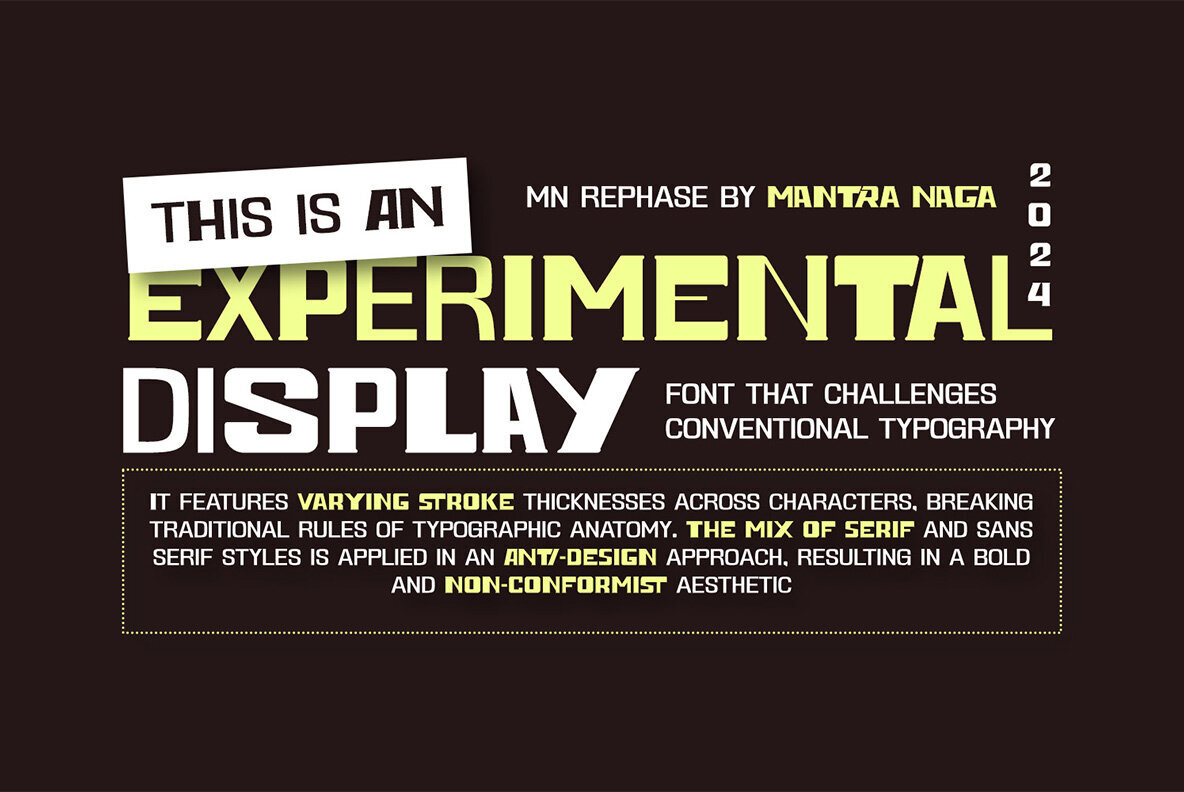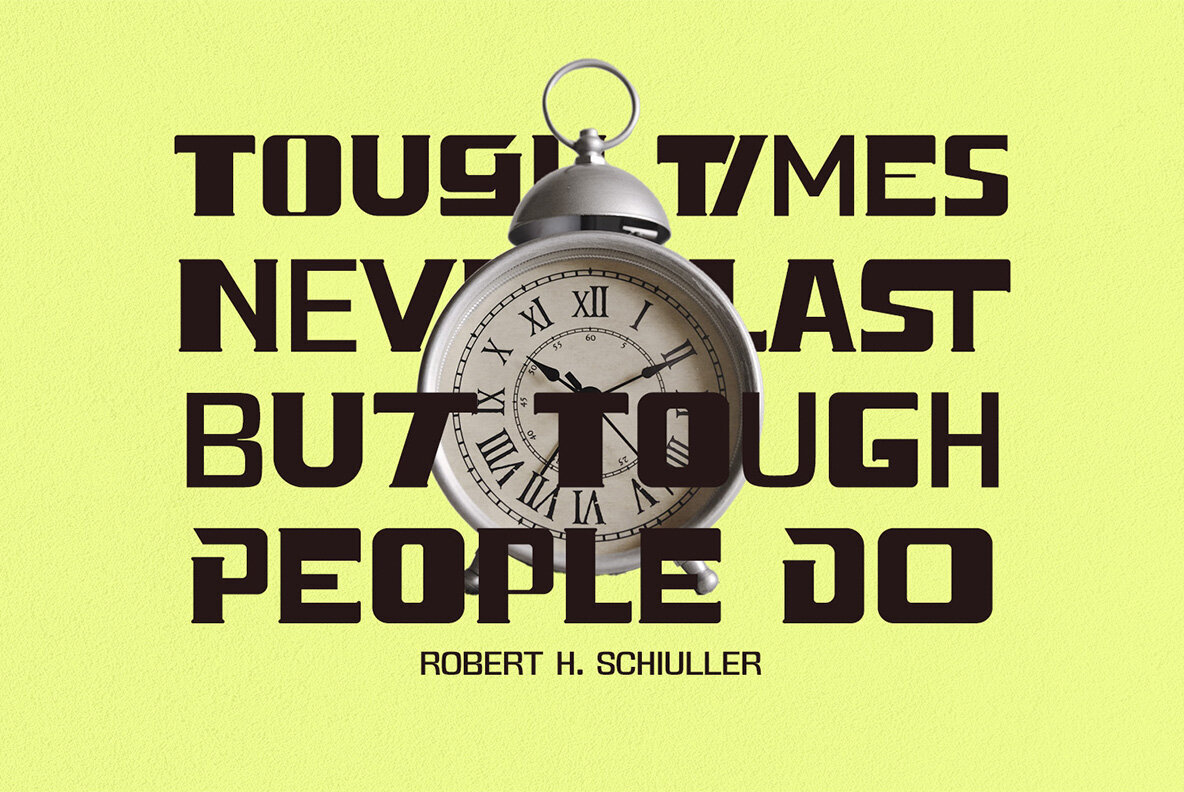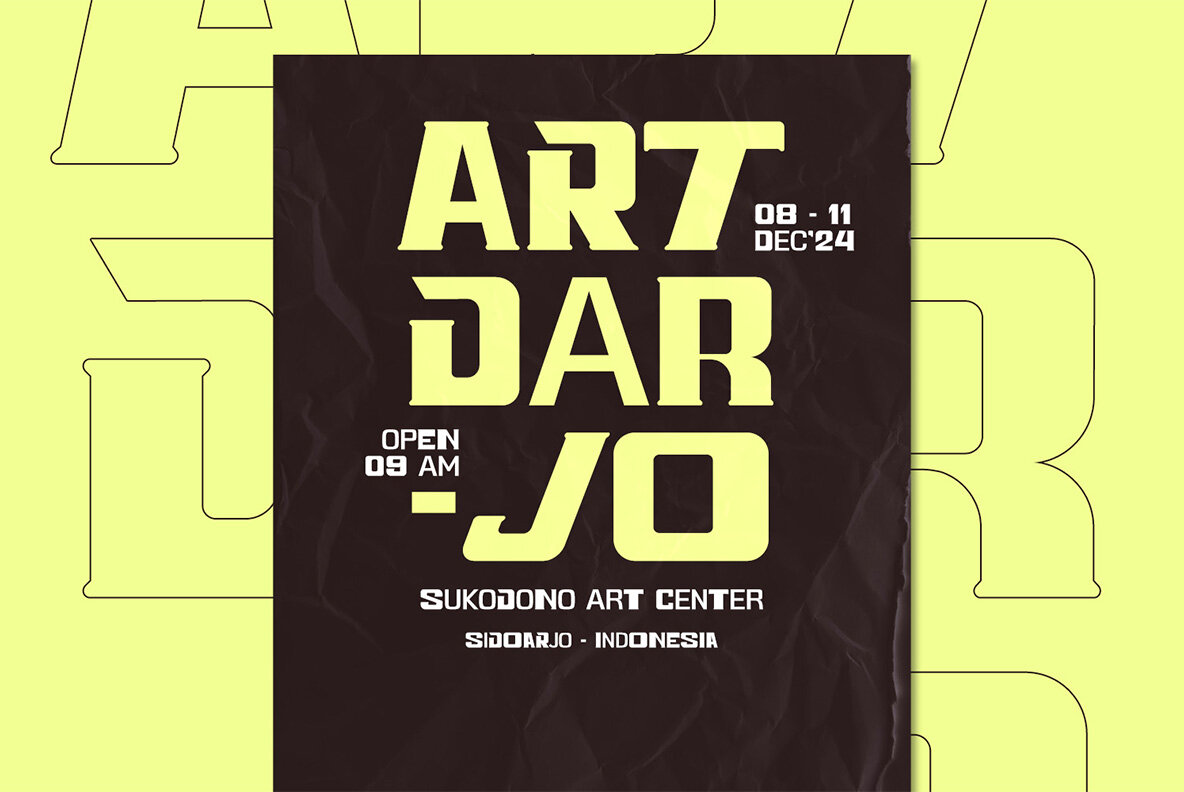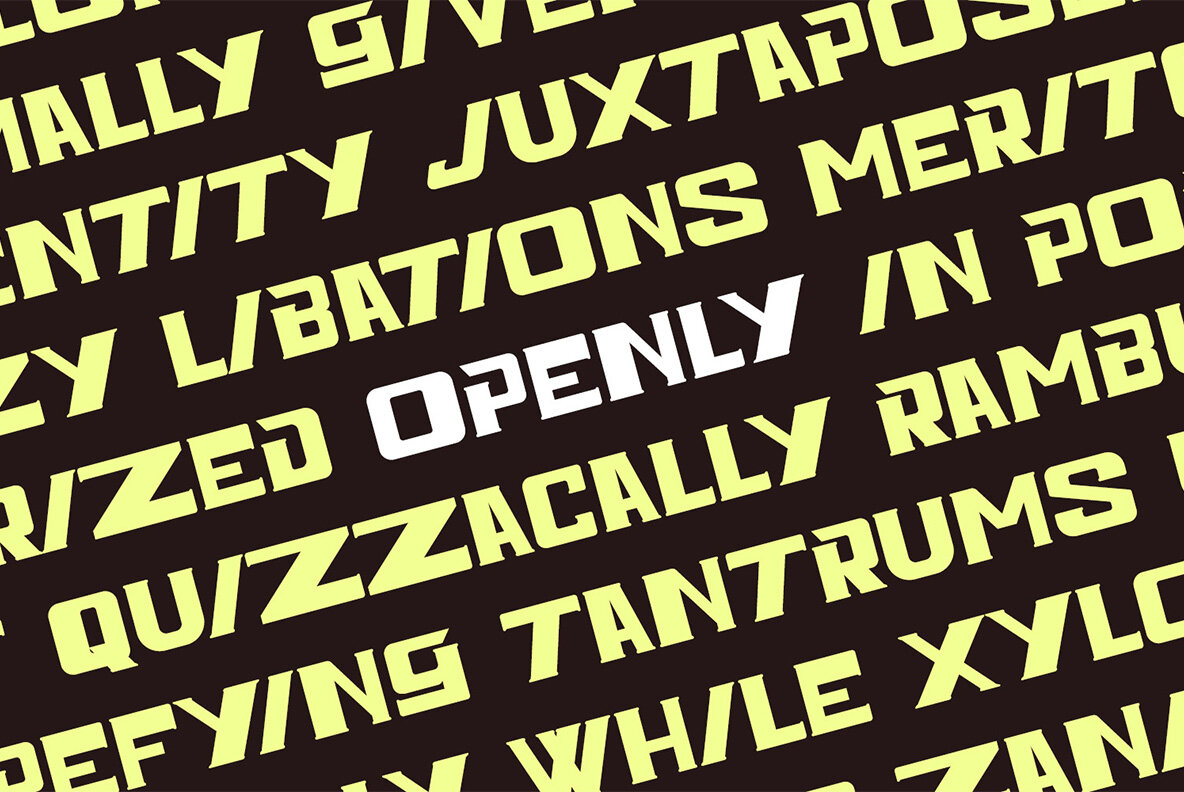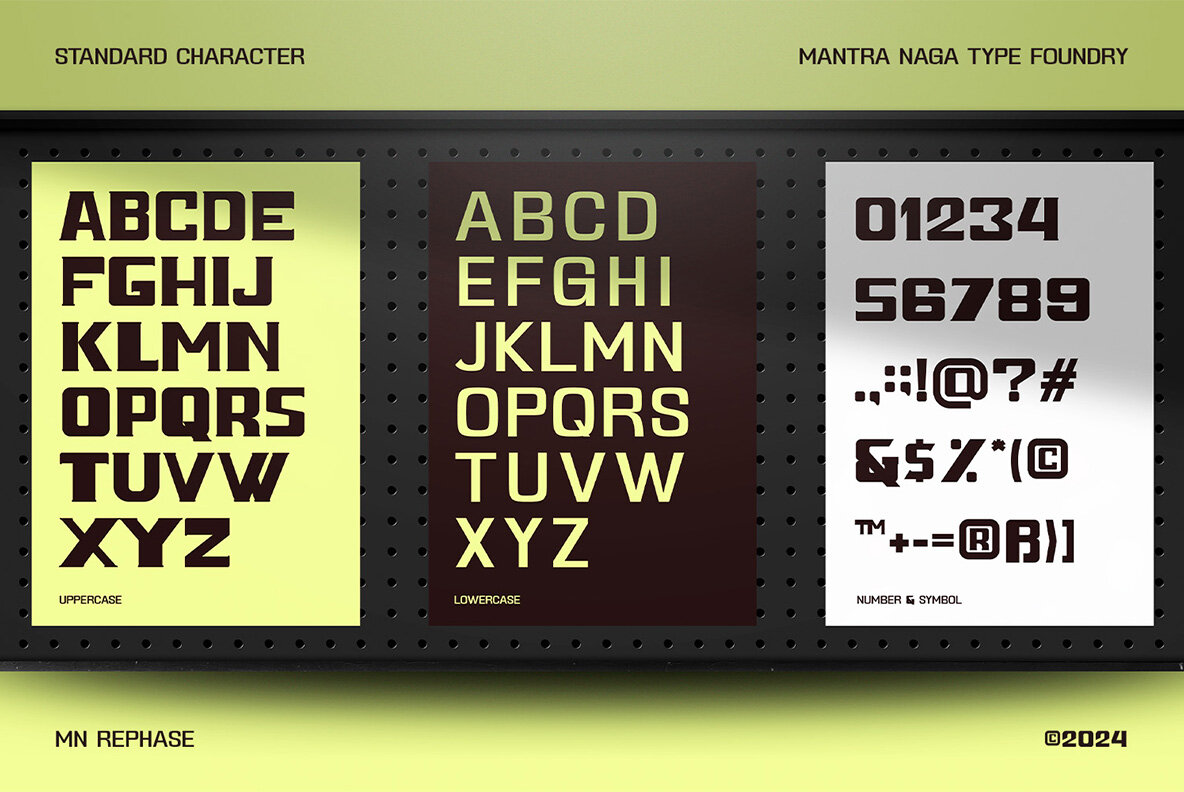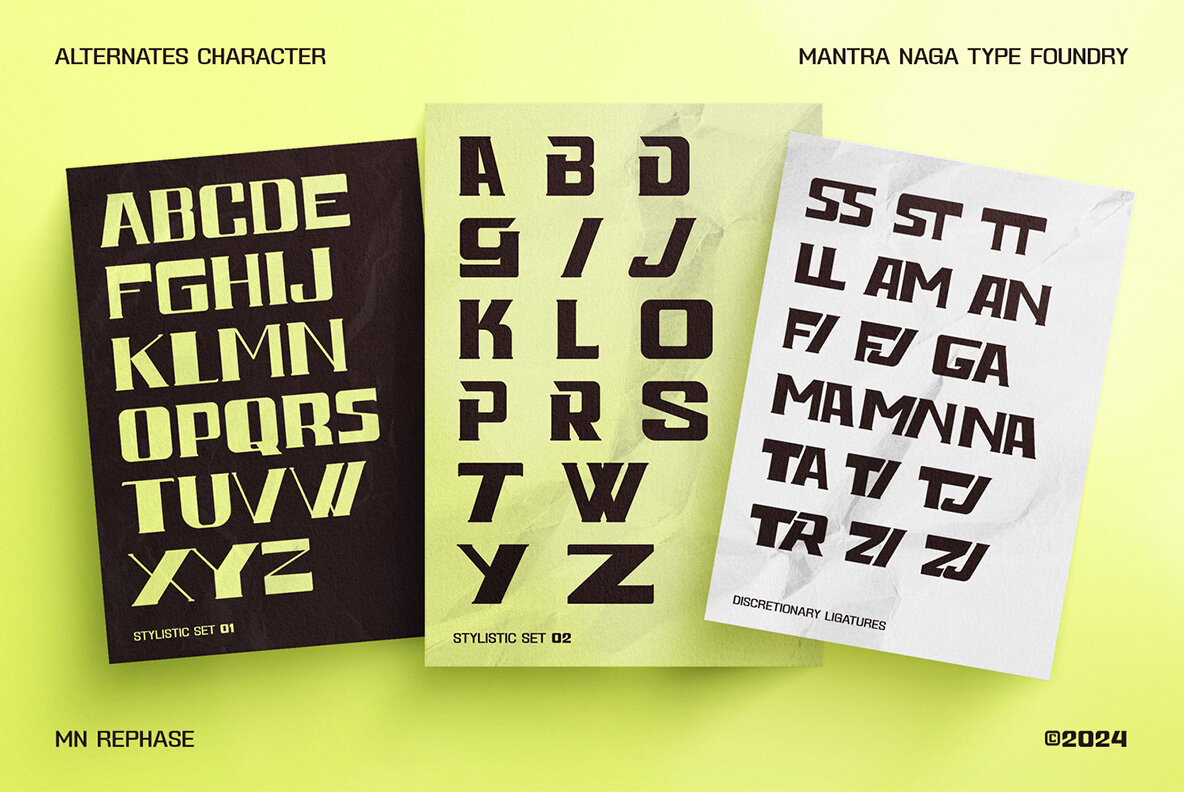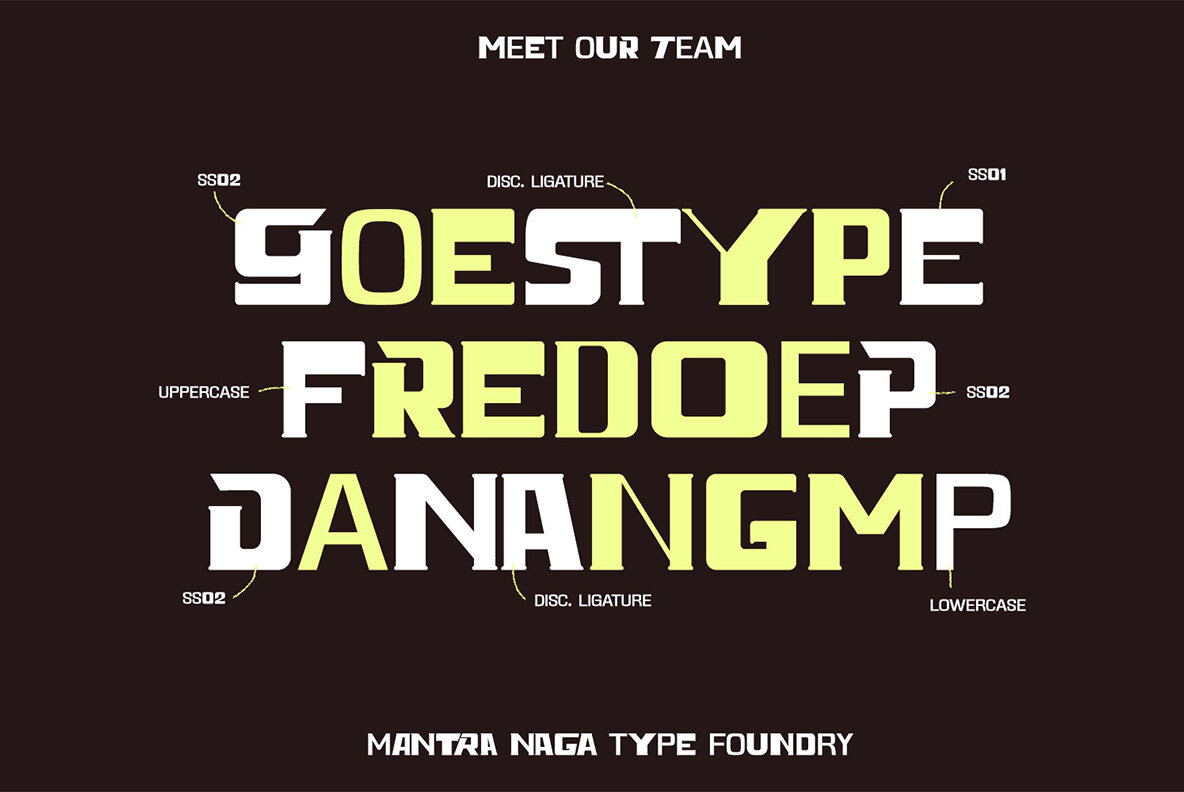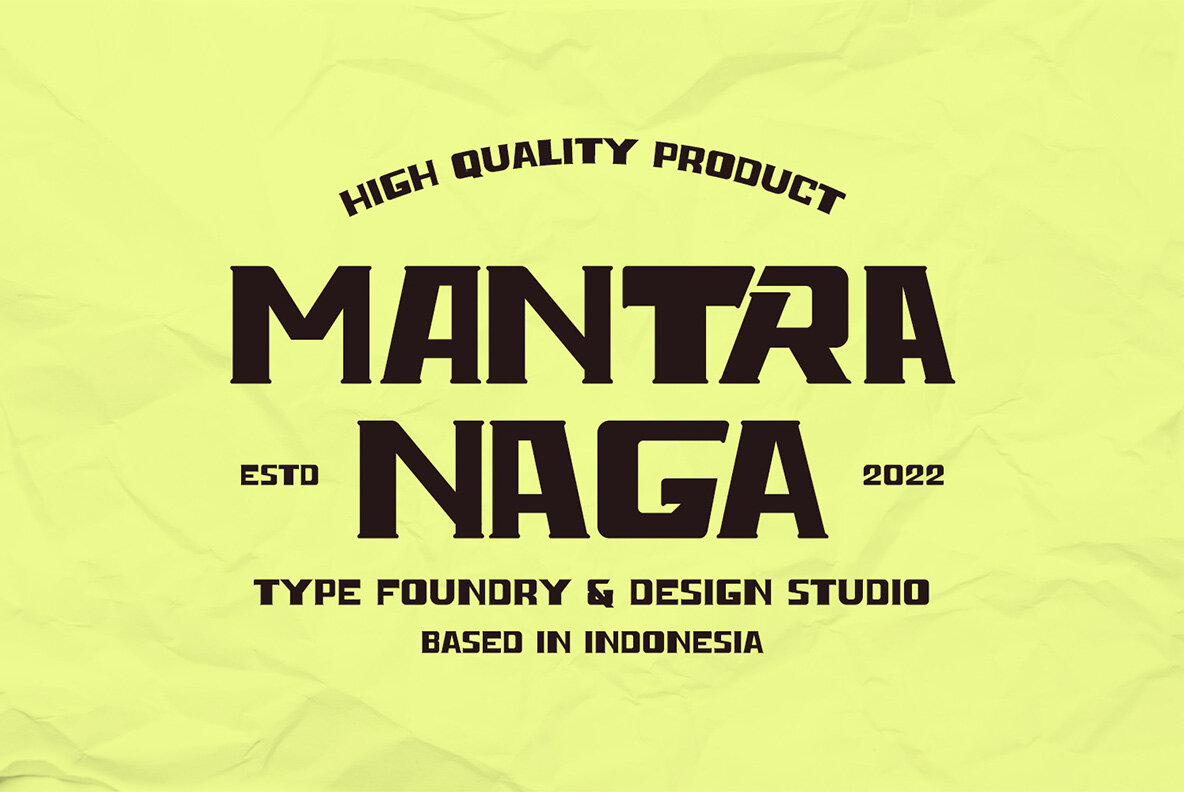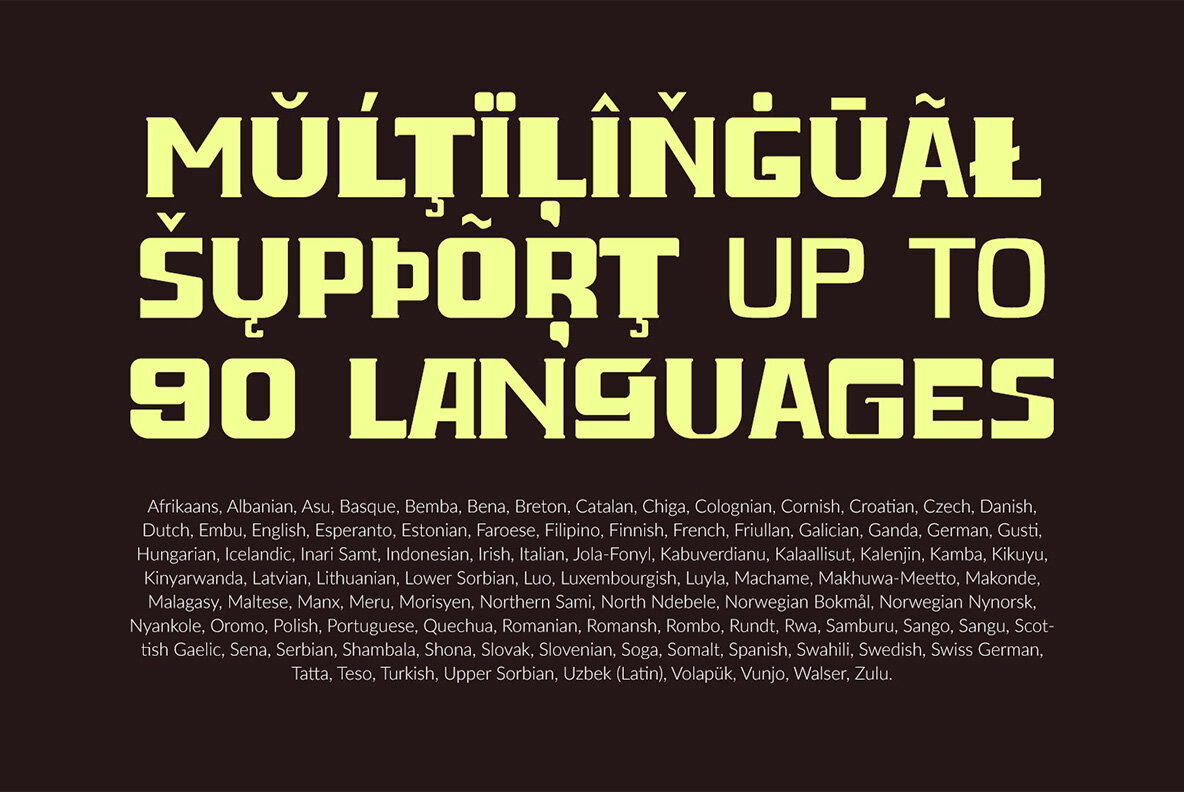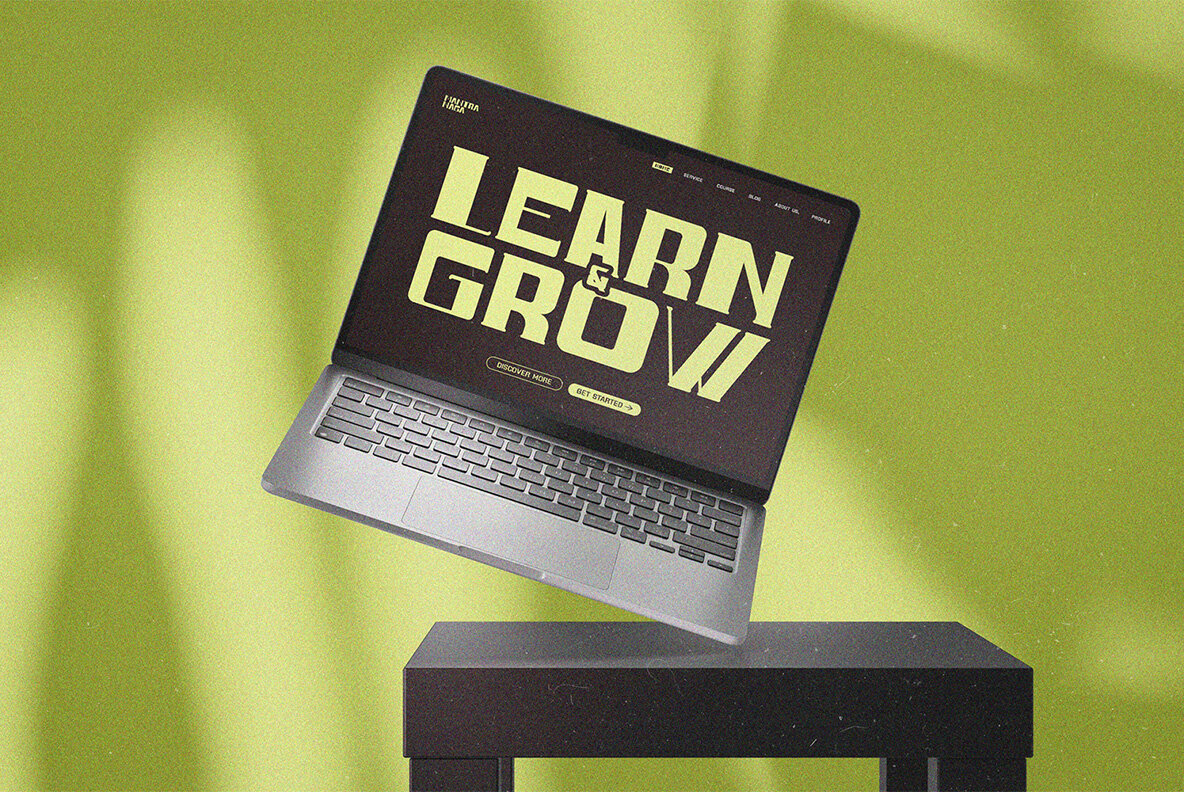
MN Rephase Font
MN Rephase Regular
MN Rephase is a bold display font with a vernacular and experimental edge, challenging conventional typography norms. Featuring varying stroke thicknesses across characters, this display font breaks traditional typographic anatomy with its mix of serif and sans serif elements in an anti-design approach. Ideal for bold and experimental projects, MN Rephase brings a raw, non-conformist aesthetic, perfect for designs that push creative boundaries with a distinctly unconventional visual identity.